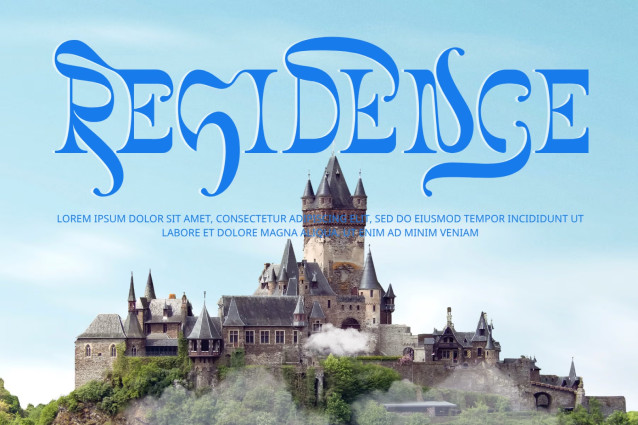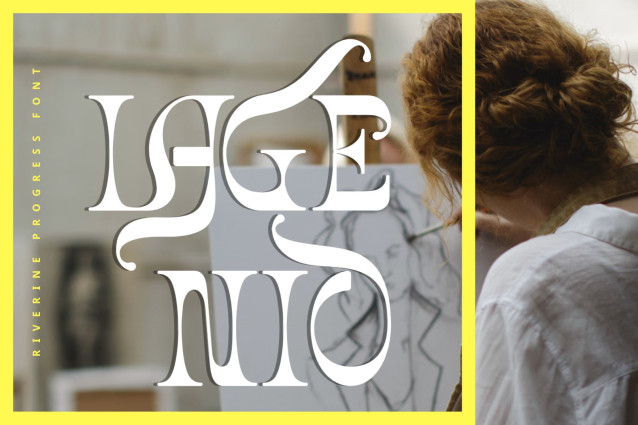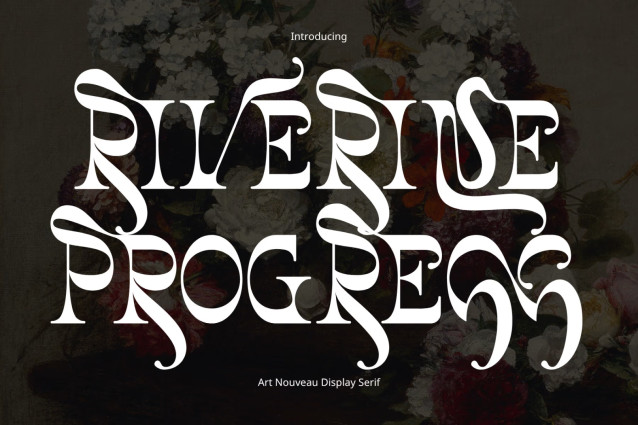
Riverine Progress – Modern Serif Font is an expressive decorative serif typeface where classic elegance meets artistic experimentation. Inspired by the graceful spirit of Art Nouveau and contemporary editorial typography, it features dramatic stroke contrast, sculptural letterforms, sweeping curves, and beautifully extended swashes that give the alphabet a distinctive sense of movement and personality. Elegant serifs are combined with flowing terminals and unexpected ornamental details, creating compositions that feel sophisticated, romantic, and visually captivating.
Designed to make a strong impression at display sizes, Riverine Progress is an excellent choice for luxury branding, fashion identities, perfume and cosmetic packaging, magazine covers, editorial headlines, wedding stationery, invitations, posters, album artwork, book covers, logos, and premium product design. Its combination of classical refinement and unconventional flowing forms gives every word a memorable decorative presence, making Riverine Progress ideal for creative projects that call for elegance, drama, and a touch of artistic extravagance.